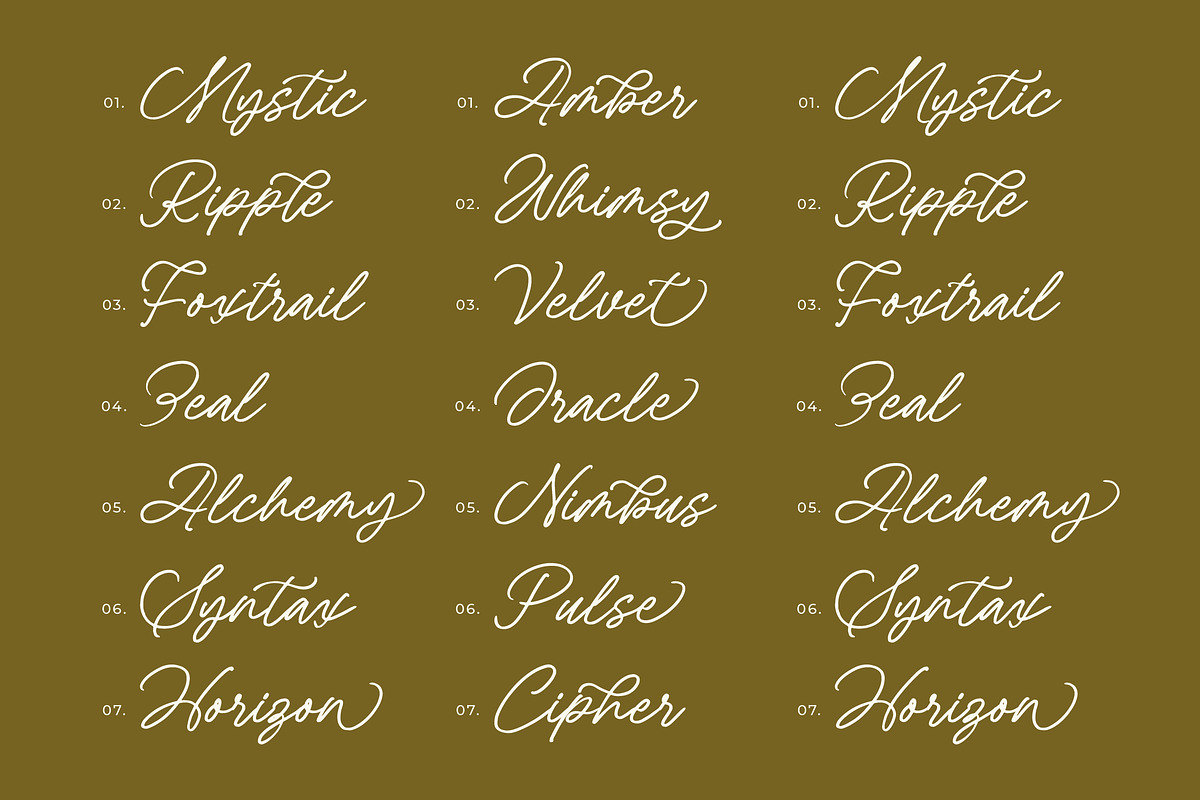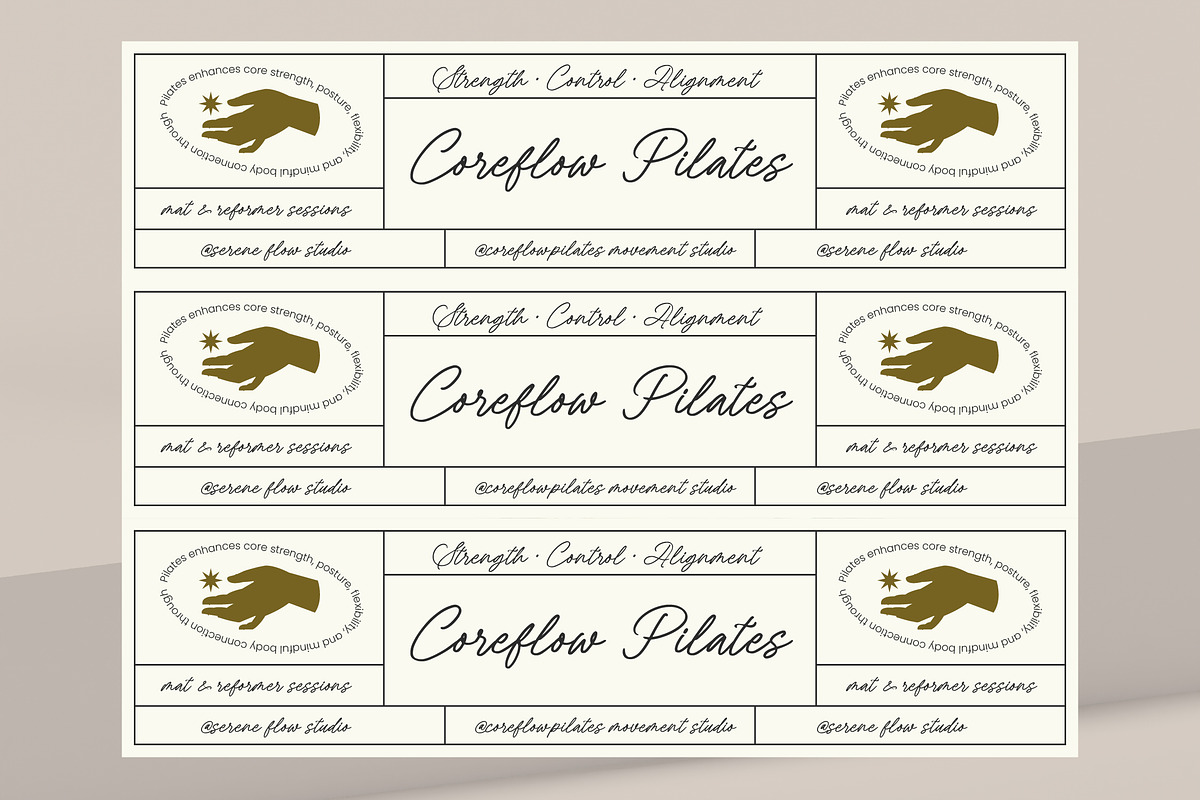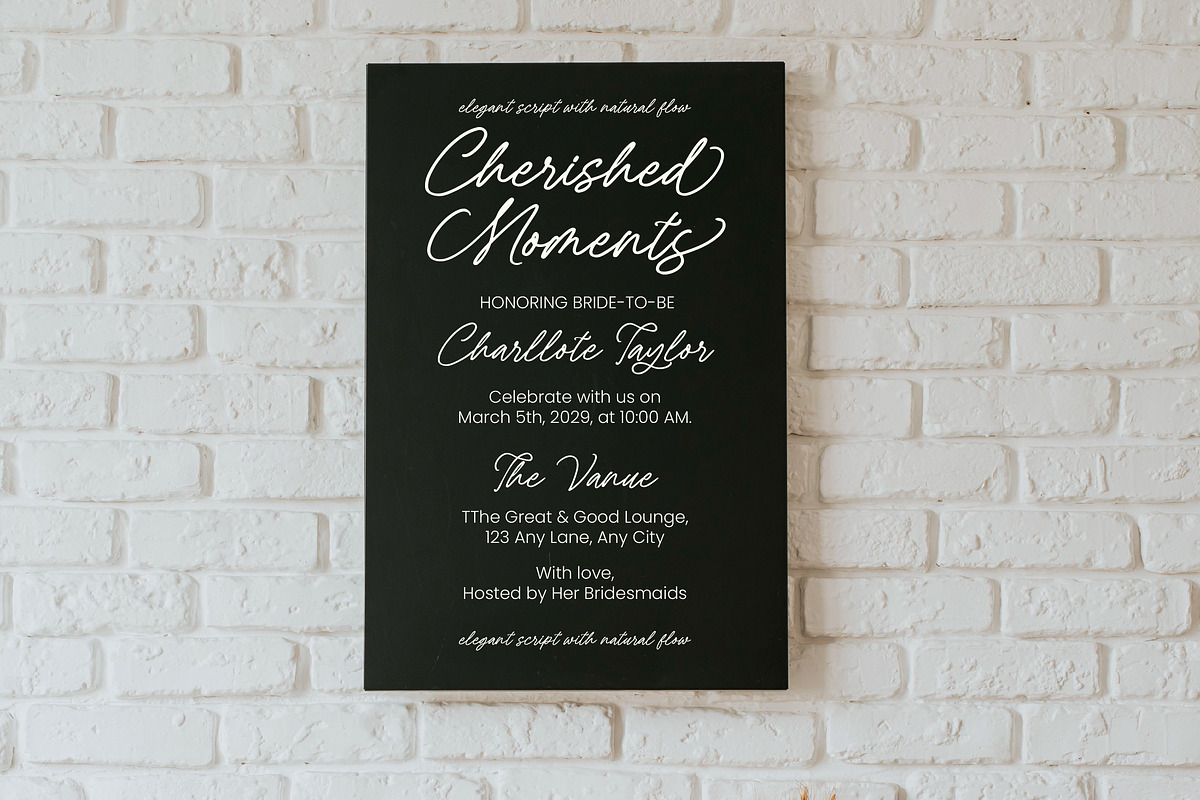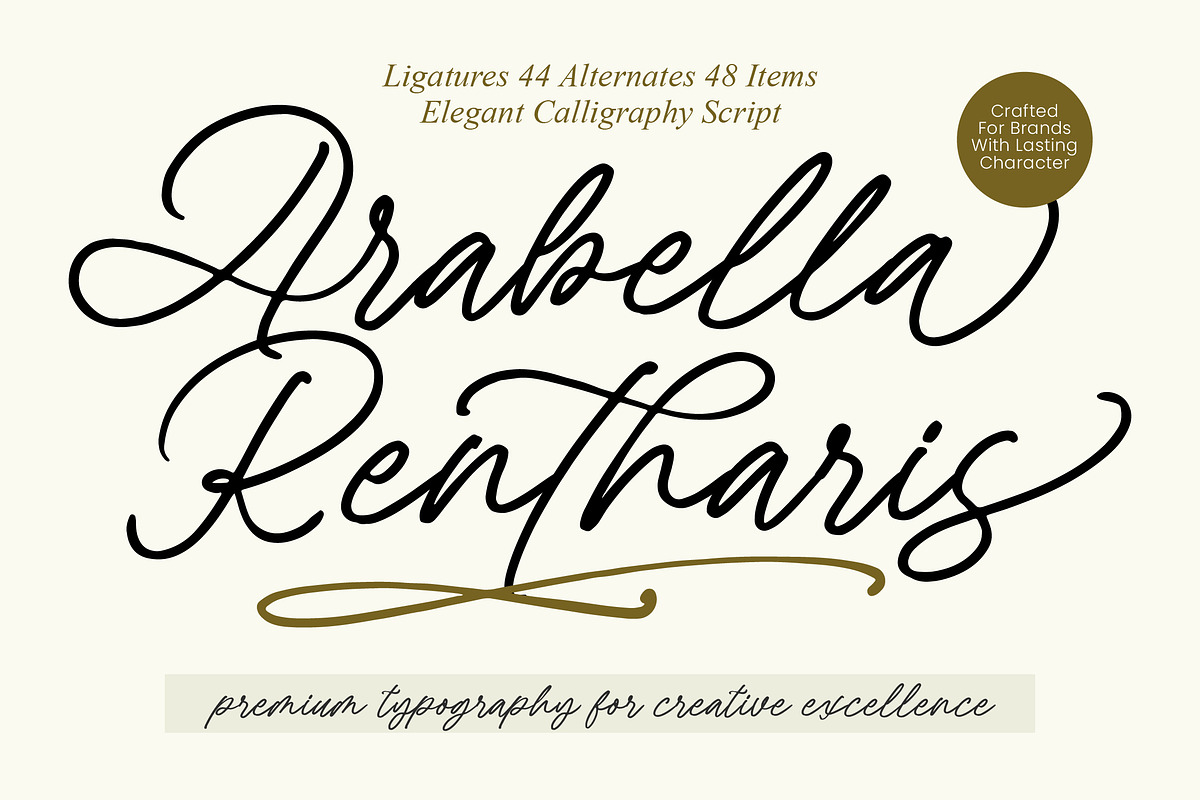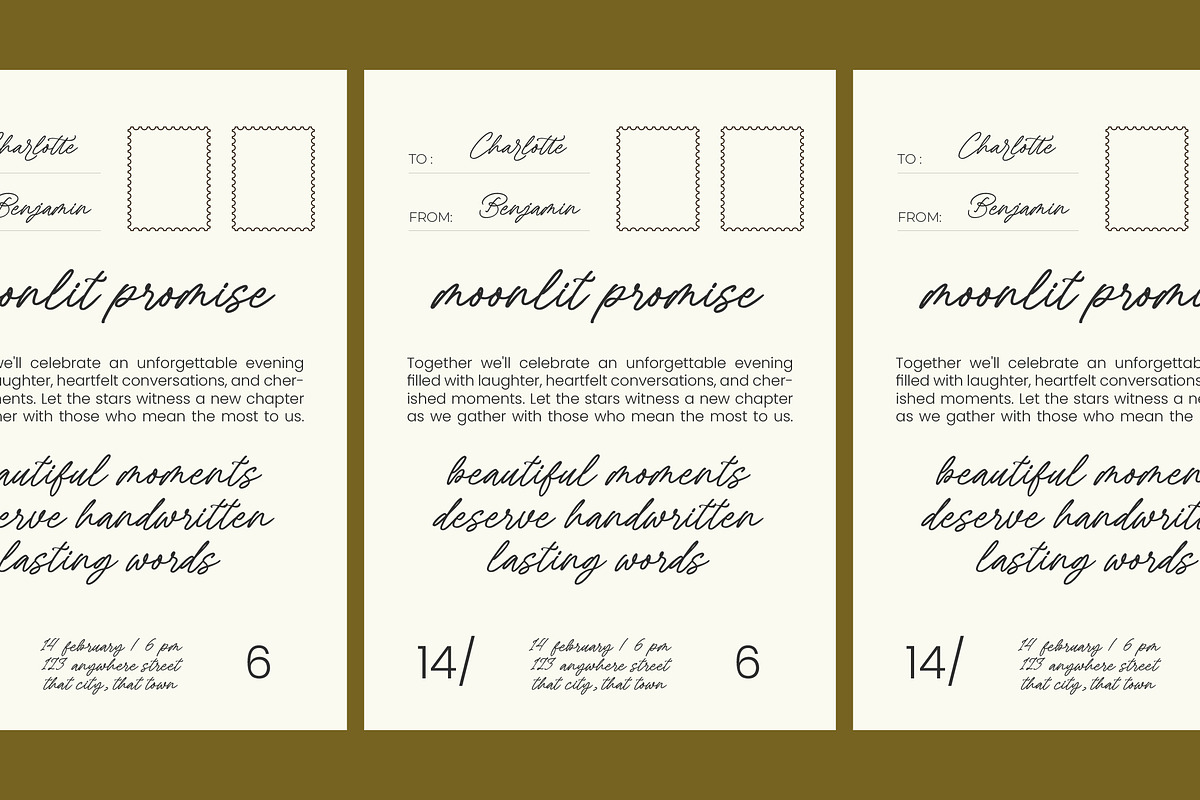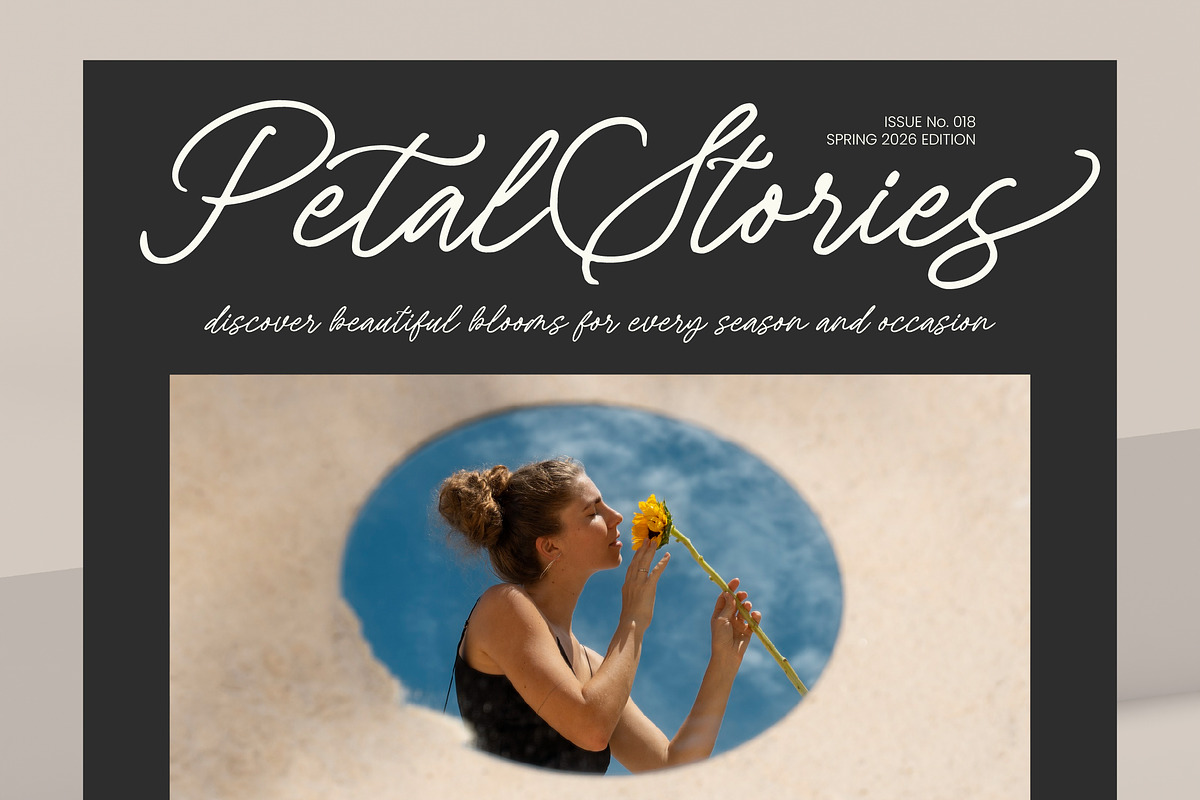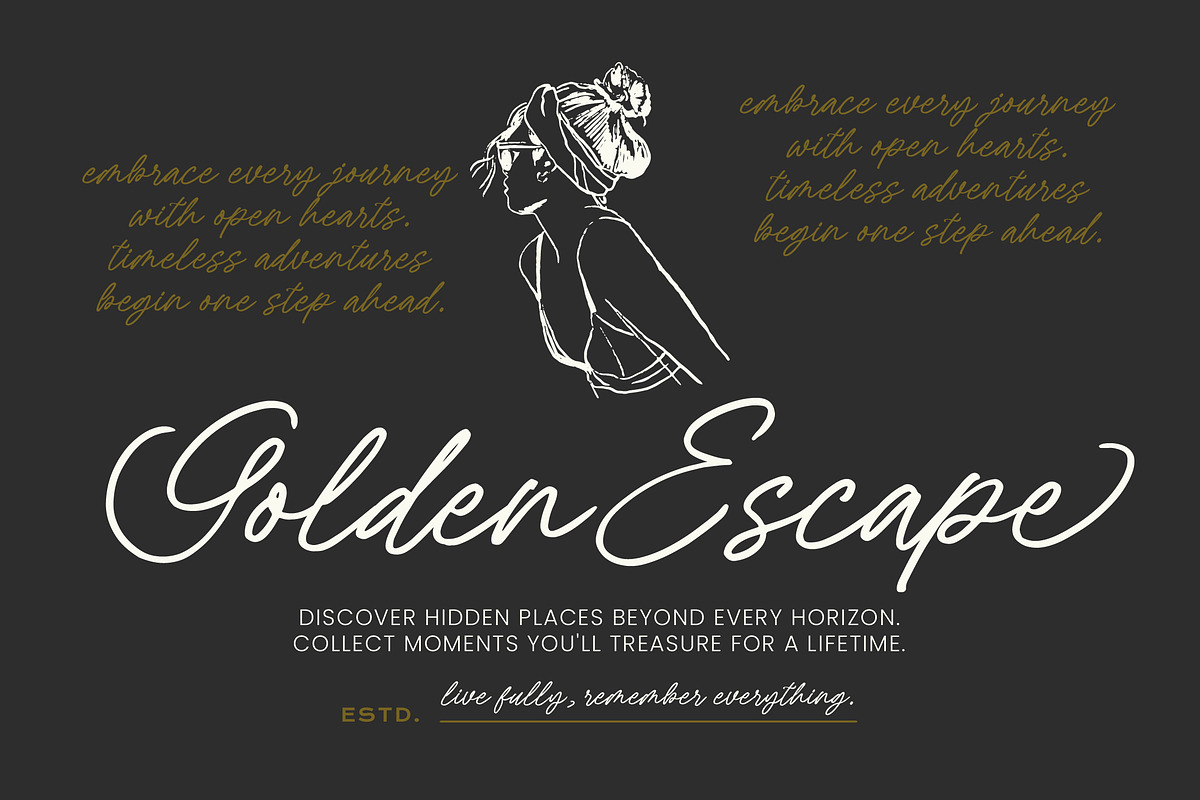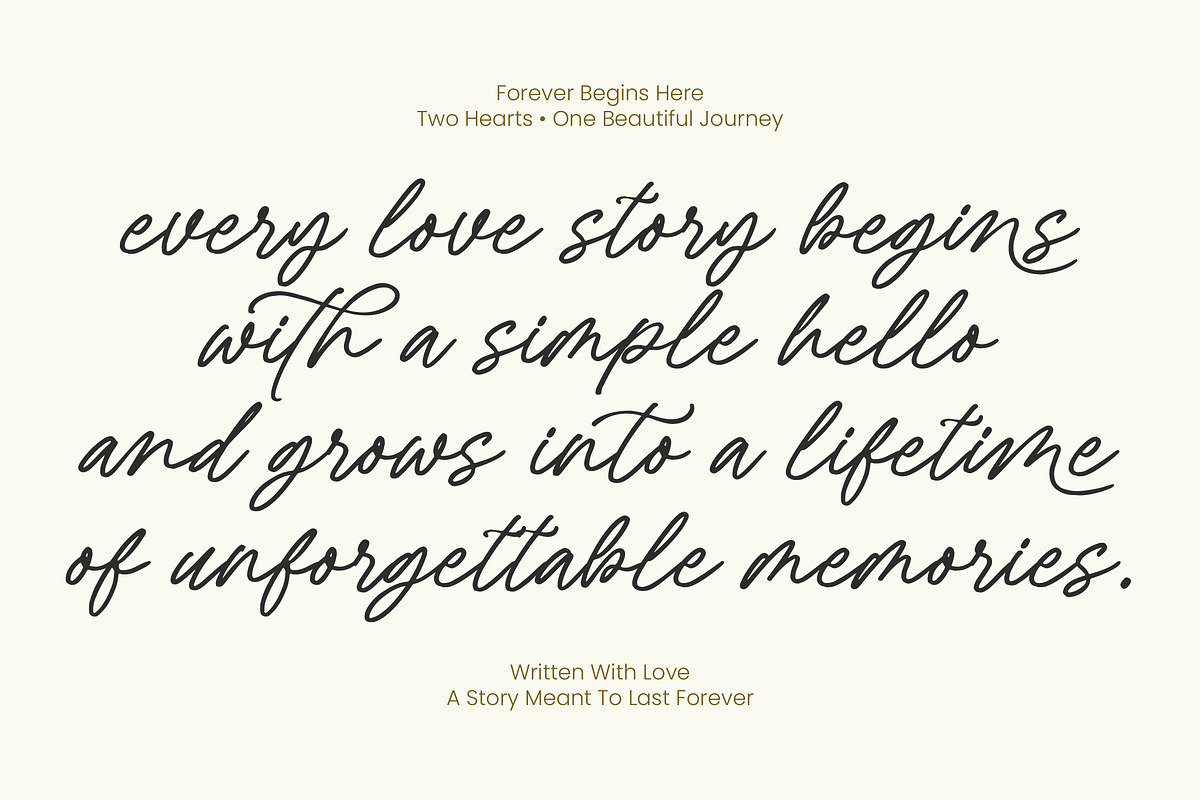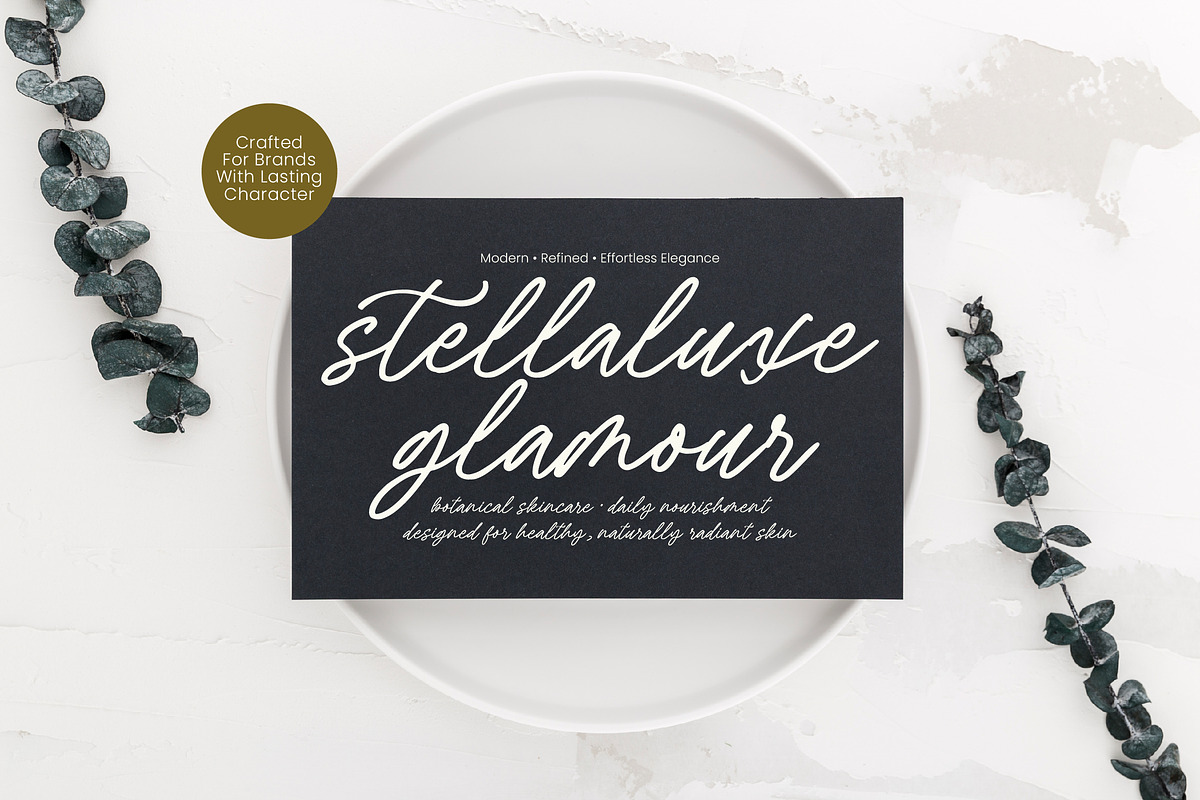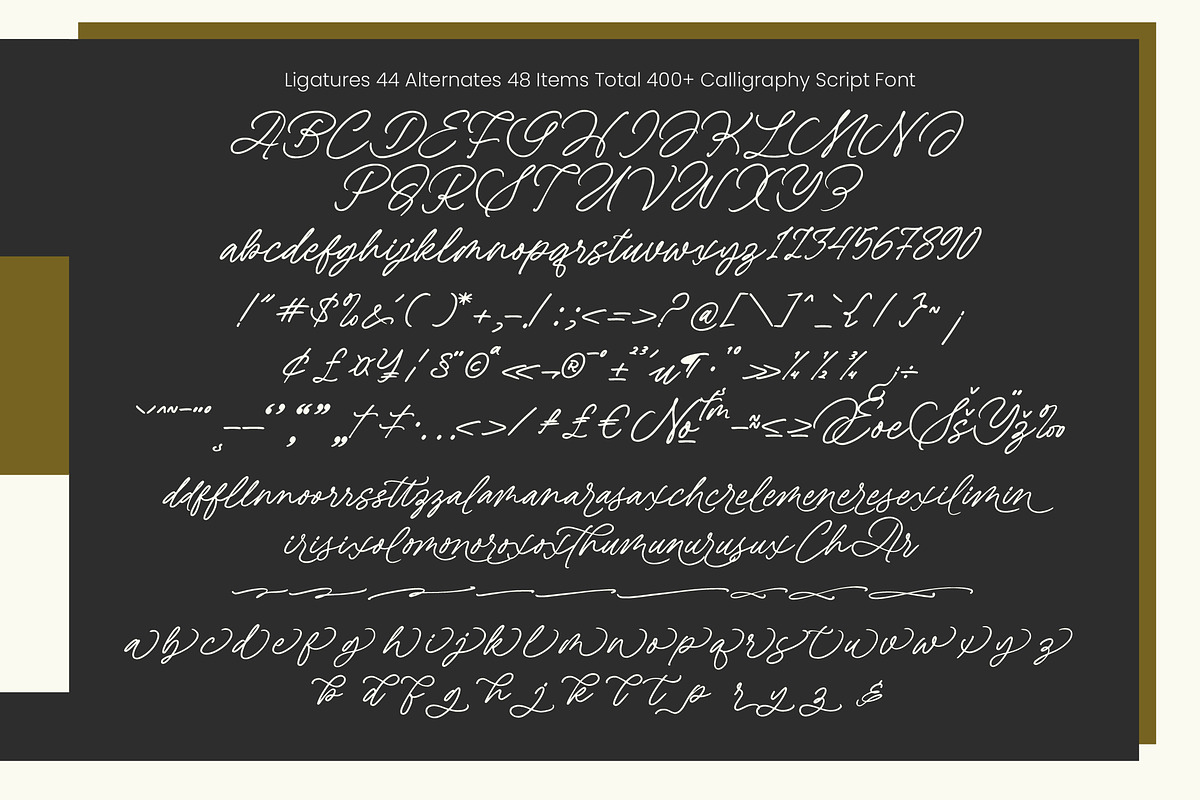
Arabella Rentharis Elegant Script
Arabella Rentharis - Elegant Calligraphy Script , Elevate your creative projects with the timeless sophistication of Arabella Rentharis - Elegant Calligraphy Script. This premium typography choice embodies a handcrafted aesthetic that balances fluid movement with structured grace. Designed for those who demand creative excellence, the font captures a luxurious atmosphere through its sweeping curves and organic flow, making it an essential tool for designers seeking a refined signature style.
Experience the unparalleled flexibility of a typeface built for global communication and artistic expression. With its extensive multilingual support, Arabella Rentharis - Elegant Calligraphy Script adapts seamlessly across global markets, making it incredibly versatile for international projects. This script font is enriched with 44 ligatures and 48 alternates, providing a wide array of customization options that ensure your headlines and logos remain unique and captivating.
Perfectly suited for high-end brand identities, Arabella Rentharis - Elegant Calligraphy Script excels in luxury branding, premium packaging, and editorial design. Its elegant strokes are ideal for wedding invitations, upscale cosmetic labels, and bespoke stationery where a touch of personal charm is required. This versatile typeface bridges the gap between traditional craftsmanship and modern design, making it the perfect choice for social media graphics and exclusive event marketing.
Transform your creative vision into a tangible masterpiece using the lasting character of this distinctive script. Choosing Arabella Rentharis - Elegant Calligraphy Script guarantees a polished finish for any professional layout, reinforcing your brand's commitment to quality. Whether you are crafting a minimalist logo or a grand advertising campaign, this font provides the visual impact needed to stand out in a competitive market while maintaining effortless readability and artistic flair.